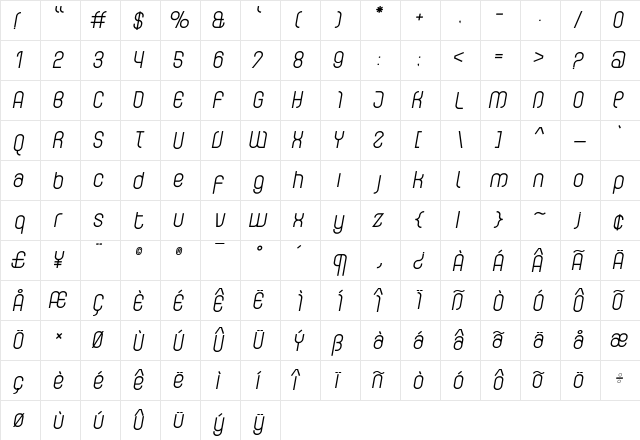
Curvature Regular Font Preview
Curvature Regular
Curvature Regular Font Details
Design Context for Curvature Typeface
Curvature takes a measured approach to typography — its balanced proportions and neutral character make it a reliable workhorse for both digital and print work.